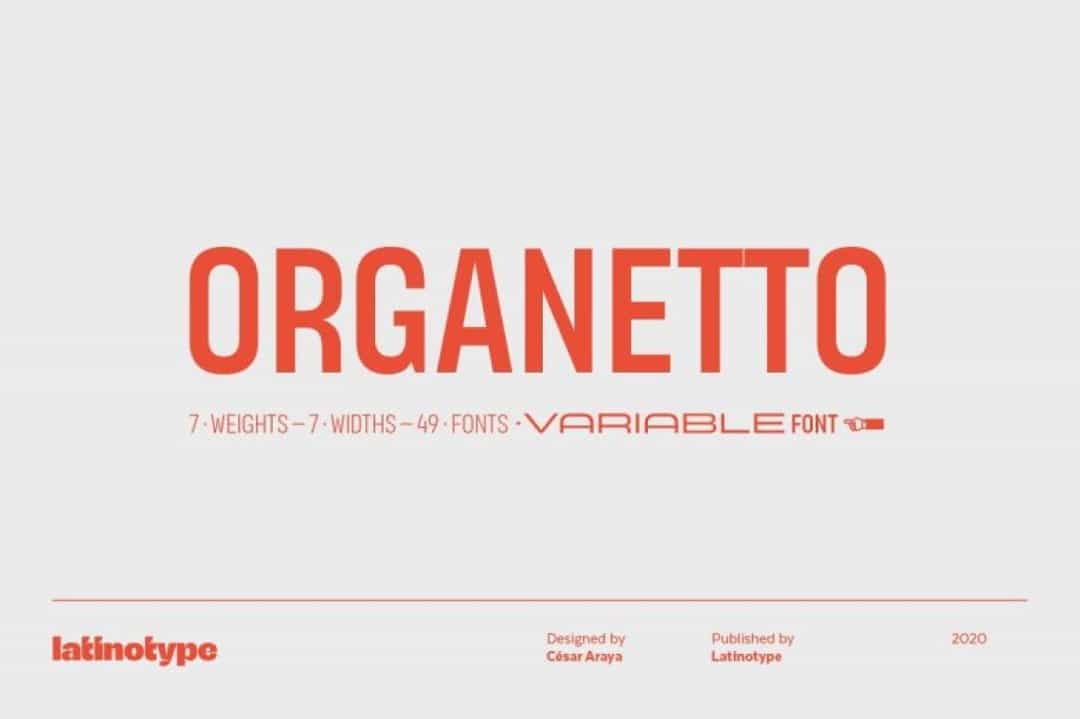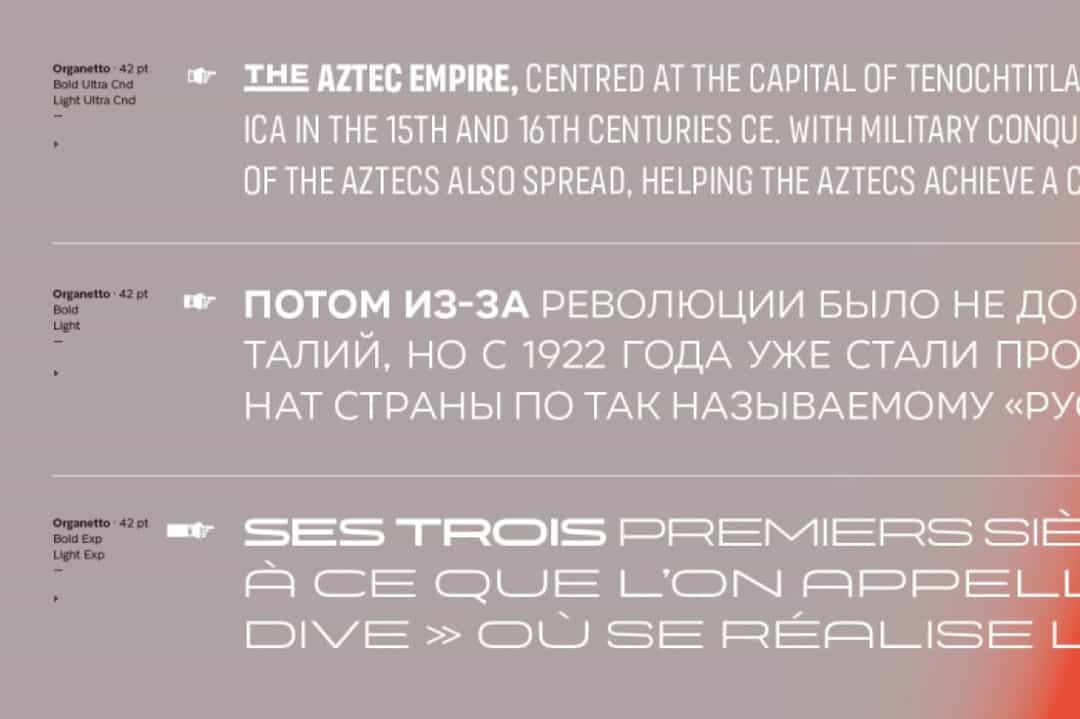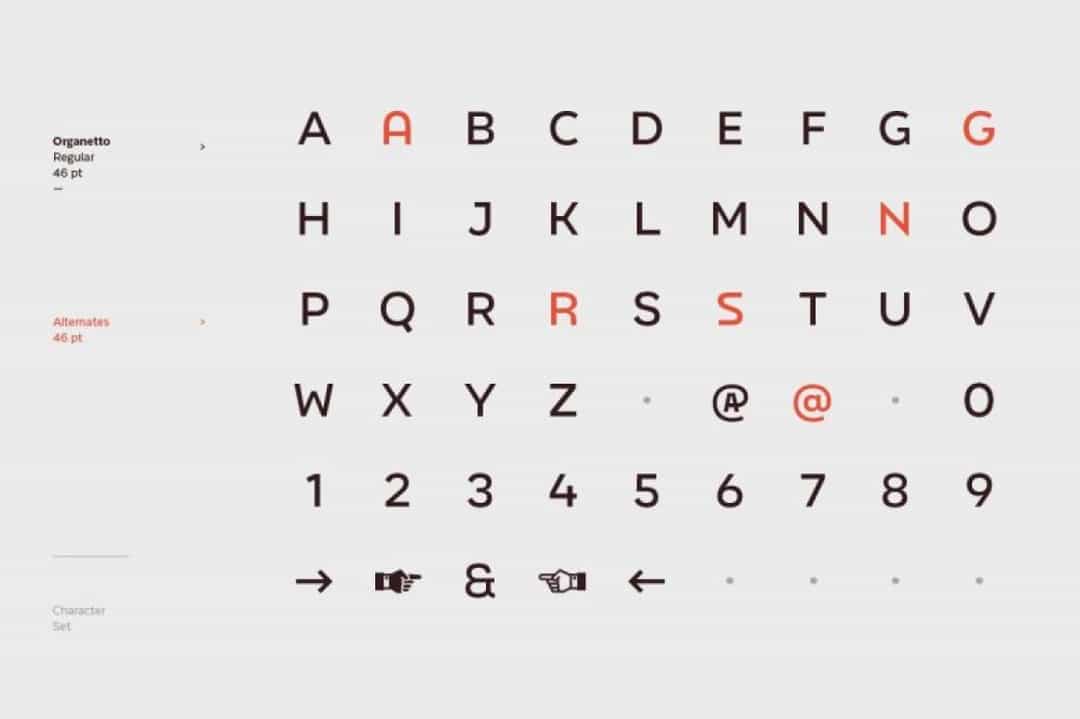
Organetto Sans Font Family is an Art Deco poster-inspired typeface, but with modern digital font technology. With multiple width options and useful geometric features like alternate characters for more customization options, Organetto’s geometric style makes it the ideal solution for meeting design requirements in any design project. Ideal for graphic artists and art directors creating words, logos, wordmarks short texts or similar projects, Organetto makes an outstanding choice when used properly!